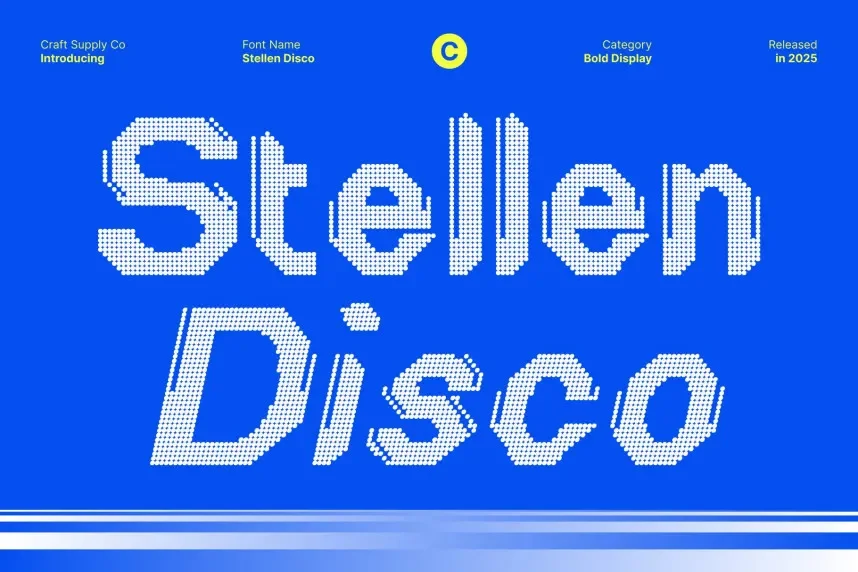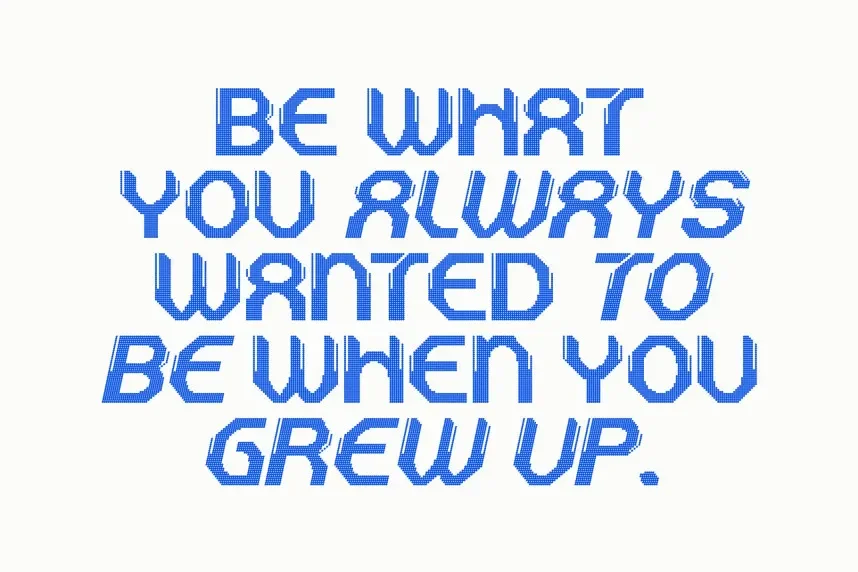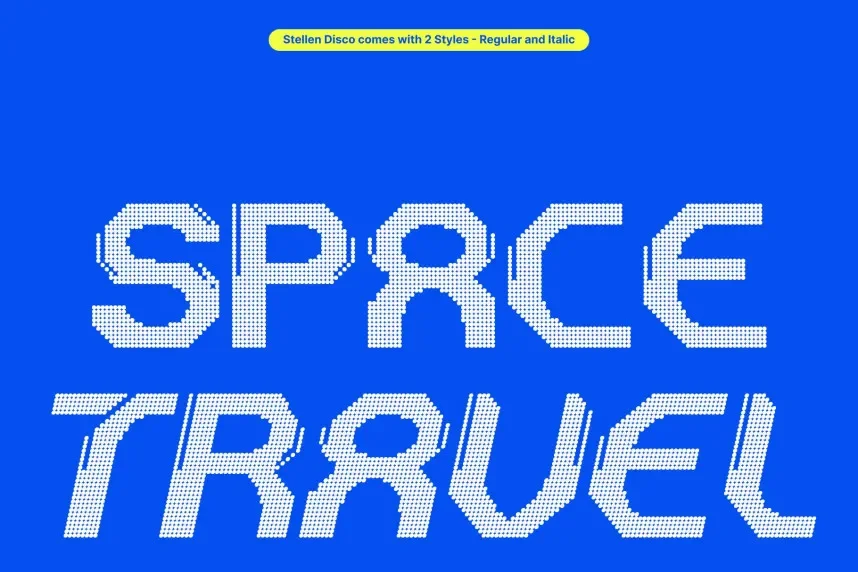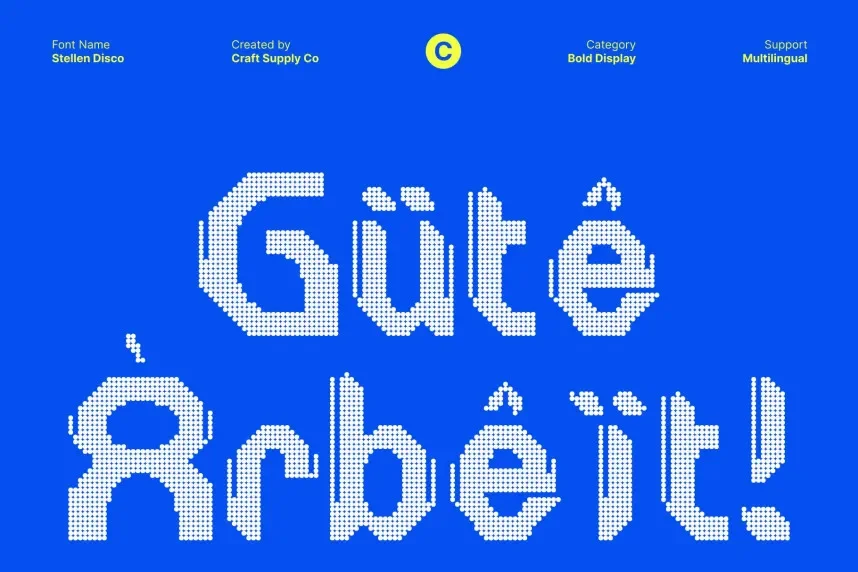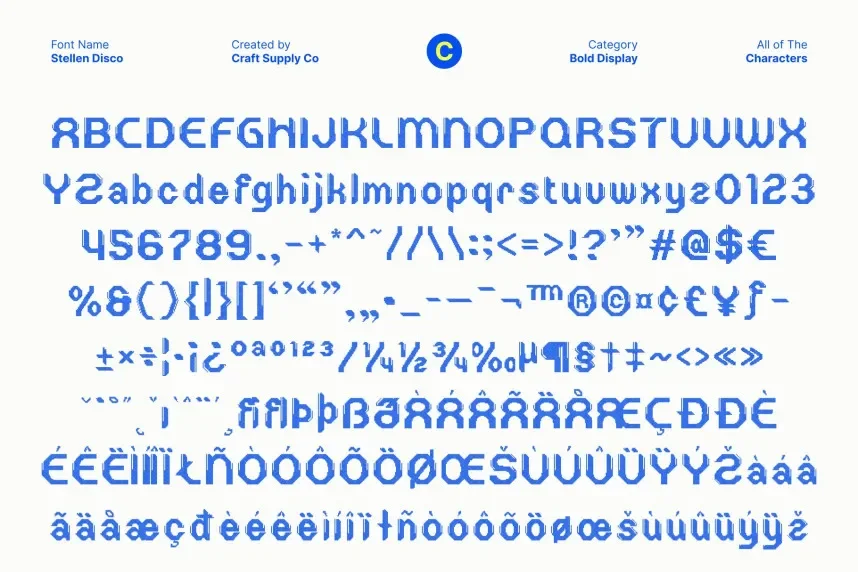
Stellen Disco Font is a display typeface created to solve visibility and consistency issues in bold branding and event graphics. Designers often need strong letterforms that remain readable across posters, logos, and social media visuals without losing impact or alignment in layouts.
This font belongs to the display category, with thick strokes, rounded curves, and wide letter spacing inspired by retro disco typography. The characters show low stroke contrast and solid geometric construction, which helps maintain clarity at large sizes. Stellen Disco Font focuses on uppercase impact, making it suitable for short text rather than long paragraphs.